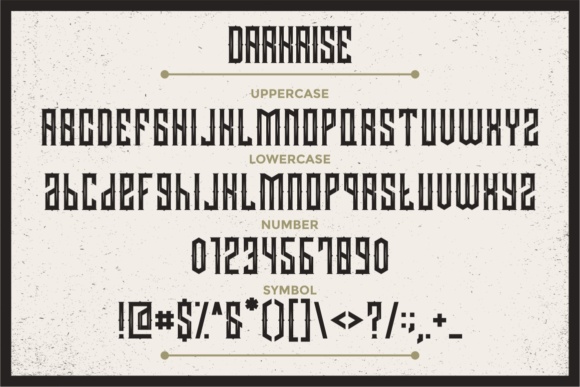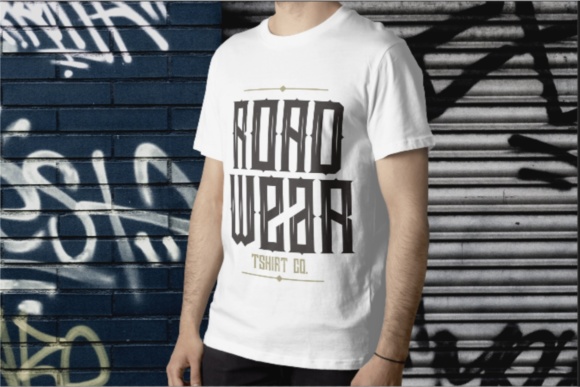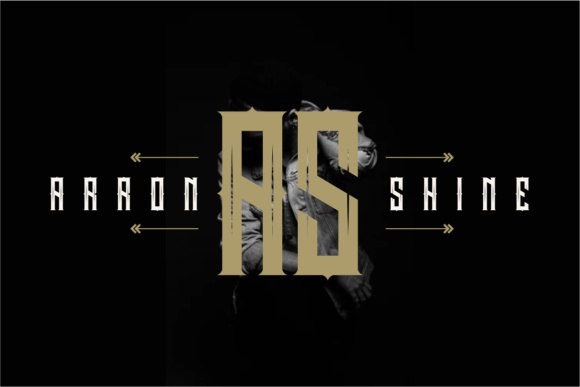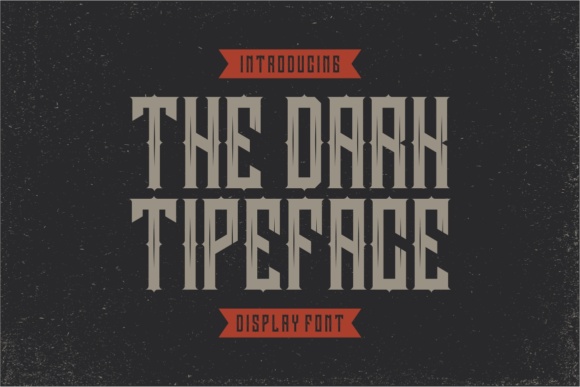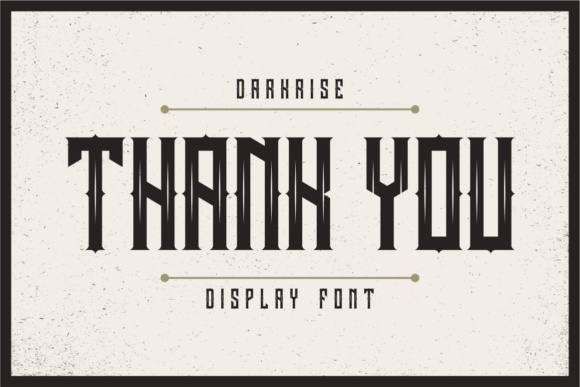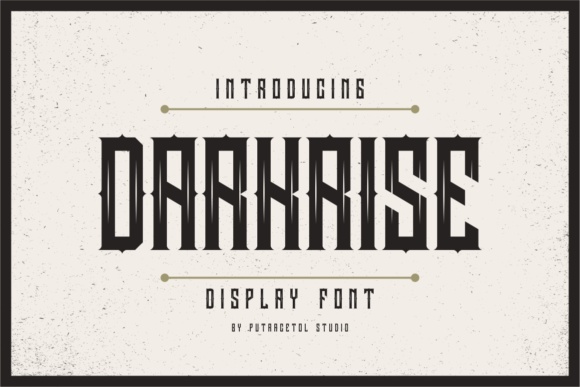
Unleash Your Creativity with Darkrise Font: A Bold and Edgy Display Typeface
Are you tired of using the same old fonts for your designs? Do you want to add a touch of edginess and boldness to your projects? Look no further than the Darkrise Font, a dynamic and metal display typeface that’s perfect for making a statement. With its biker style and sharp edges, this font is sure to grab attention and leave a lasting impression.
What is Darkrise Font?
The Darkrise Font is a bold and dynamic display typeface that’s designed to make a statement. Its metal and edgy aesthetic is reminiscent of the biker style, with sharp edges and a rugged feel. This font is perfect for designers and crafters who want to add a touch of rebellion and attitude to their projects.
Key Features of Darkrise Font
- Dynamic and Bold: The Darkrise Font is designed to be bold and eye-catching, making it perfect for headlines, titles, and logos.
- Metal and Edgy: With its metal and edgy aesthetic, this font is perfect for designers who want to add a touch of rebellion and attitude to their projects.
- Biker Style: The Darkrise Font has a distinct biker style that’s sure to appeal to fans of the motorcycle culture.
- Sharp Edges: The font’s sharp edges give it a rugged and edgy feel that’s perfect for making a statement.
- Versatile: The Darkrise Font is perfect for a wide range of design projects, including logos, titles, headlines, labels, and more.
Uses for Darkrise Font
The Darkrise Font is a versatile typeface that can be used for a wide range of design projects. Here are some ideas to get you started:
- Logos: The Darkrise Font is perfect for creating bold and eye-catching logos that make a statement.
- Headlines and Titles: Use the Darkrise Font to create bold and attention-grabbing headlines and titles that draw readers in.
- Labels and Packaging: The Darkrise Font is perfect for creating labels and packaging that stands out on store shelves.
- Posters and Flyers: Use the Darkrise Font to create bold and eye-catching posters and flyers that grab attention.
- Social Media Graphics: The Darkrise Font is perfect for creating social media graphics that stand out in crowded feeds.
Tips for Using Darkrise Font
Here are some tips for getting the most out of the Darkrise Font:
- Use it sparingly: The Darkrise Font is bold and attention-grabbing, so use it sparingly to avoid overwhelming your design.
- Pair it with contrasting fonts: Pair the Darkrise Font with contrasting fonts to create visual interest and add depth to your design.
- Experiment with colors: The Darkrise Font looks great in a range of colors, so experiment with different hues to find the one that works best for your design.
- Pay attention to spacing: Make sure to pay attention to spacing and kerning when using the Darkrise Font to ensure that it looks its best.
The Darkrise Font is a bold and dynamic display typeface that’s perfect for designers and crafters who want to add a touch of edginess and rebellion to their projects. With its metal and edgy aesthetic, sharp edges, and biker style, this font is sure to grab attention and leave a lasting impression. Whether you’re creating logos, headlines, labels, or social media graphics, the Darkrise Font is a versatile typeface that’s sure to become a go-to in your design arsenal.